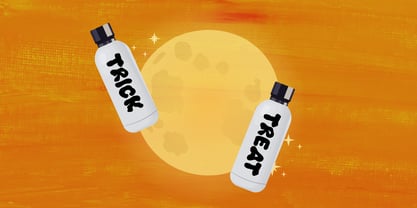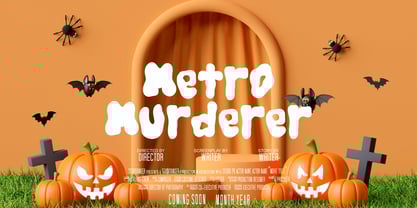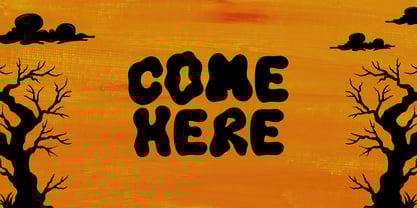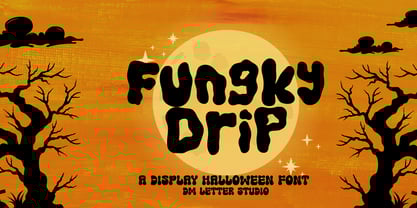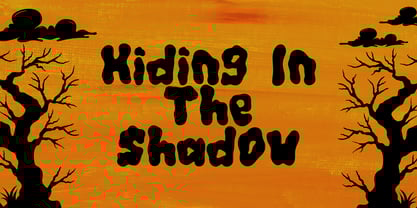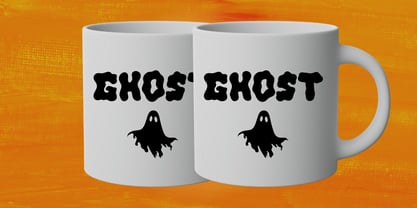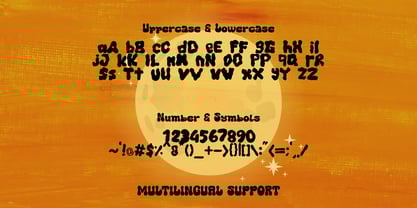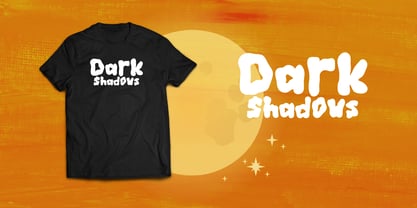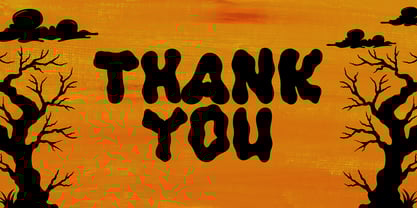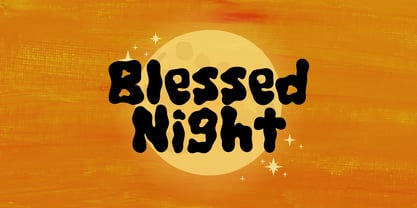
Funky Drip
The Funky Drip Font Family was designed by Dimas Prasetyo and published by DM Studio. Funky Drip contains 1 styles. More about this family
Funky Drip – Bold & Groovy Dripping Display Font
Funky Drip is a bold, eccentric display font with funky grooves and a liquid drip effect. Inspired by psychedelic posters, retro streetwear, and playful horror design, this font is all about standing out. Perfect for album art, skate decks, Halloween graphics, fashion branding, or eye-catching headlines, Funky Drip brings personality and movement to every letter.
Features:
• Dripping Letterforms: Each character looks like it’s melting, splashing, or dripping with funky attitude.
• Perfect for Bold Designs: Great for horror themes, music covers, festival posters, and merch.
• Retro Vibes with Modern Edge: A blend of 70s funk and street-style graffiti.
• Complete Character Set: Includes uppercase, lowercase, numerals, punctuation, and multilingual support.